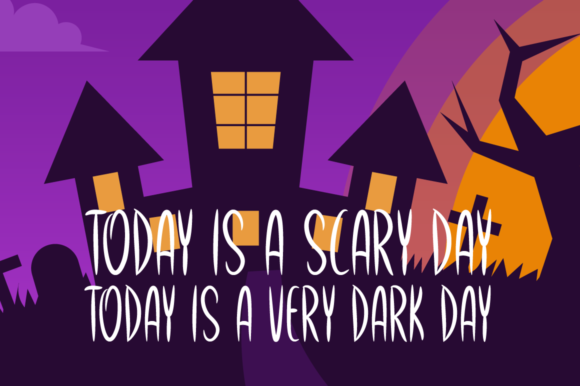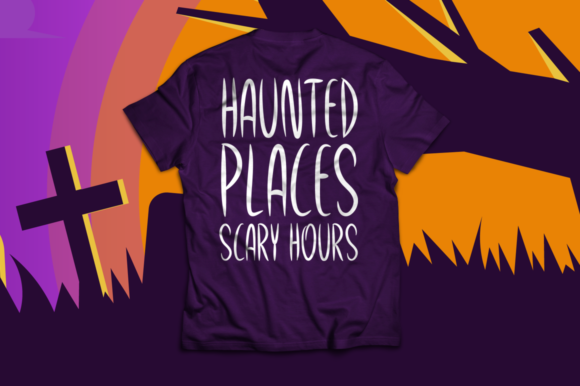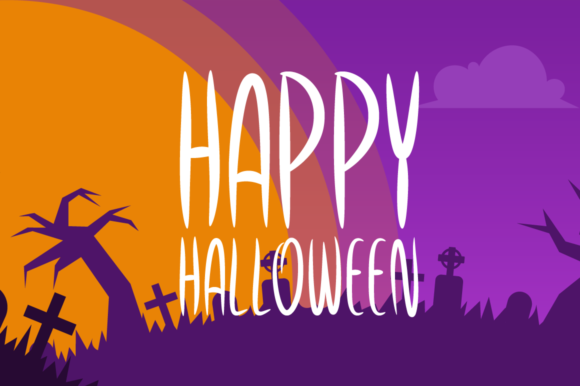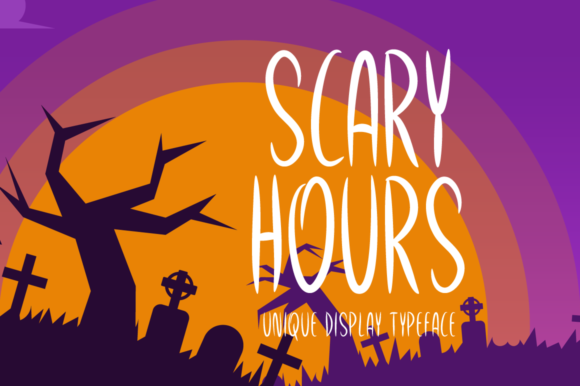
Introduction to Scary Hours Font
Scary Hours is an unique and spooky display font.
It is perfectly suitable for any Halloween-related project or crafty idea The only limit is your imagination.
Key Features of Scary Hours Font
Why Choose Scary Hours Font?